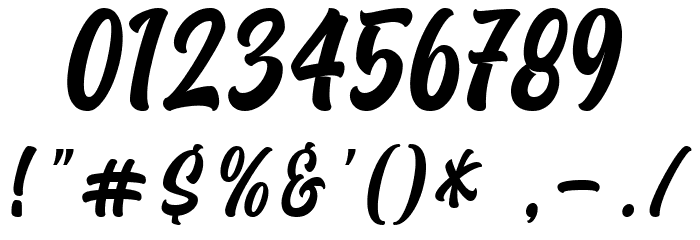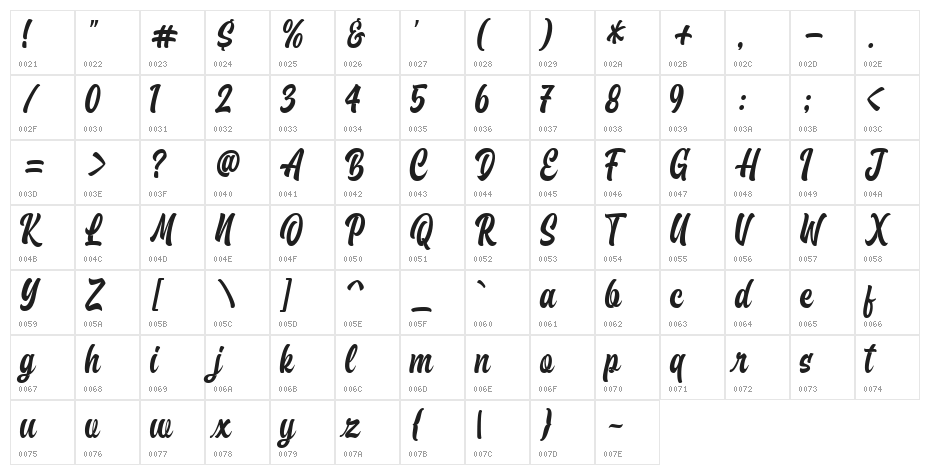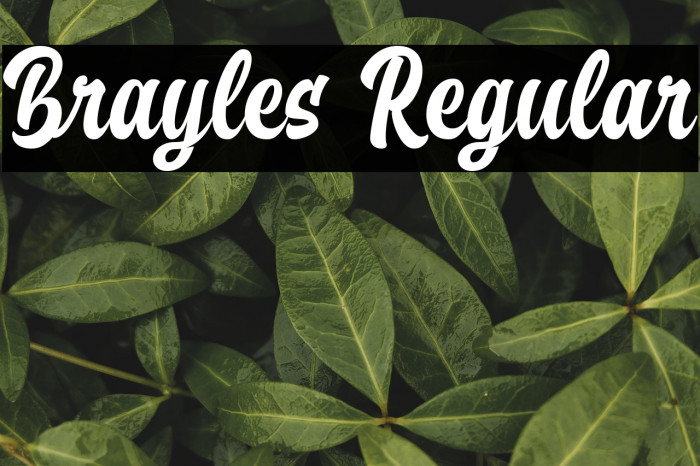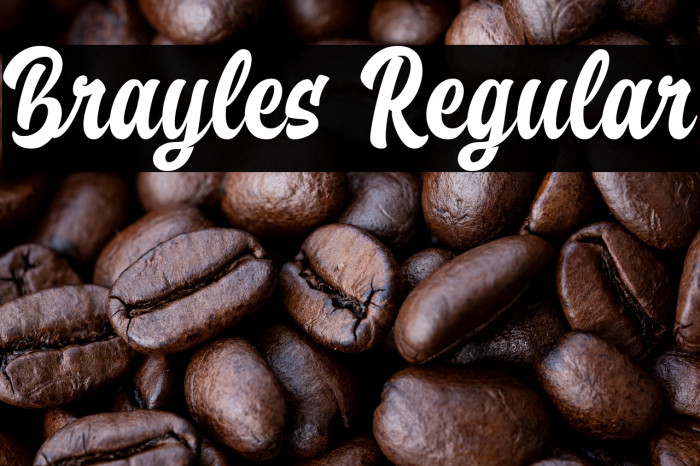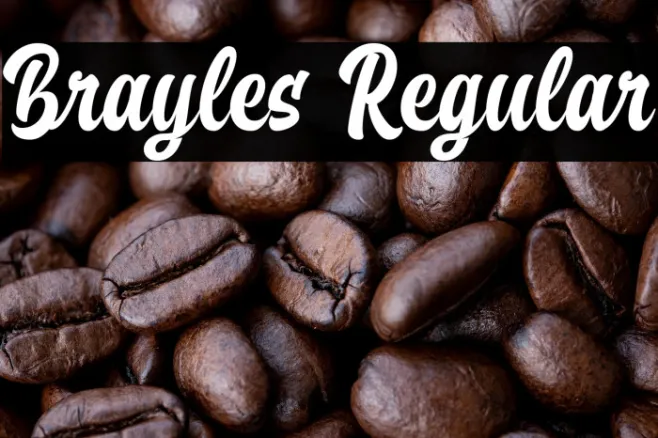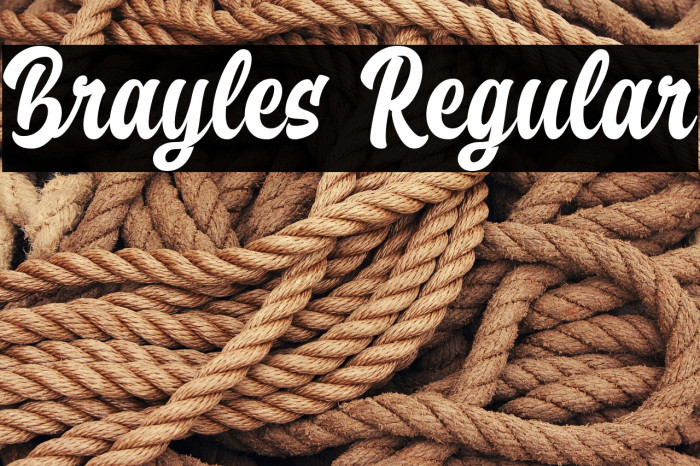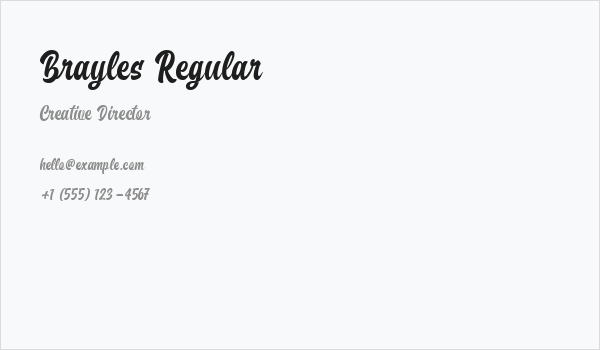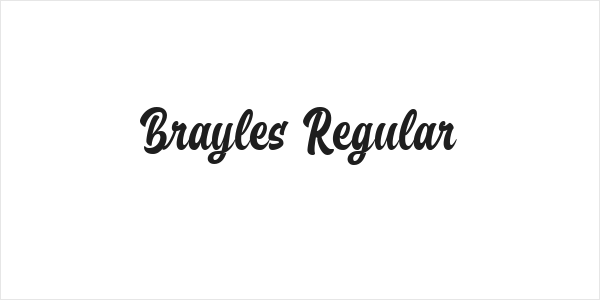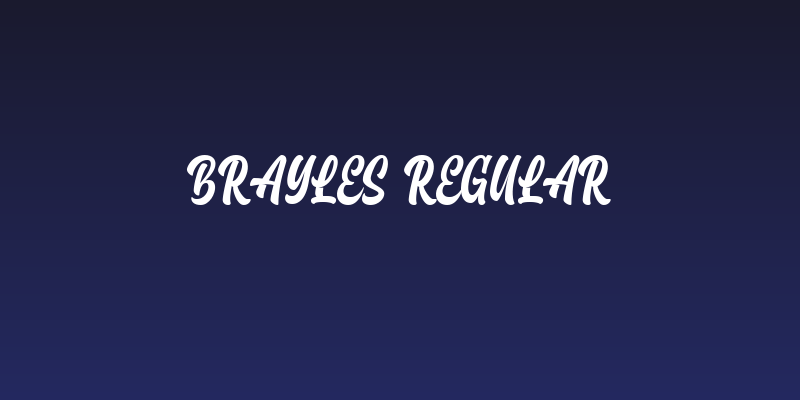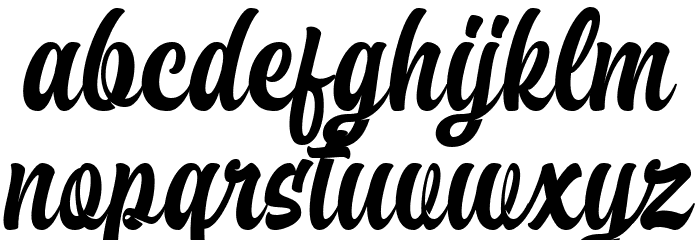
Brayles Regular Font
Brayles Regular Description
This font features a bold and flowing script style, characterized by its smooth, connected strokes and elegant curves. The uppercase letters are prominently designed with a sense of movement, while the lowercase letters maintain a consistent flow, enhancing readability. The numerals are distinct and bold, matching the overall aesthetic of the font. Special characters are crafted with the same attention to detail, ensuring they integrate seamlessly with the letters and numbers. This font exudes a sense of sophistication and dynamism, making it suitable for a variety of creative applications.